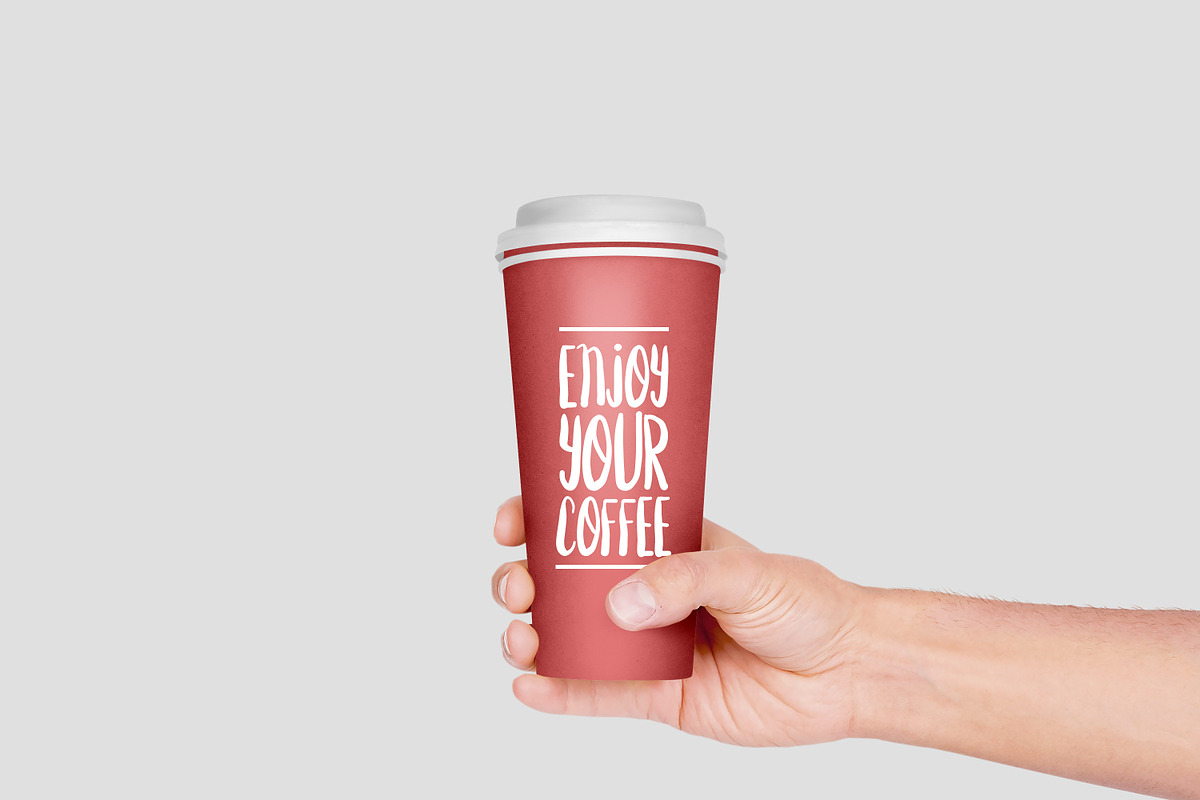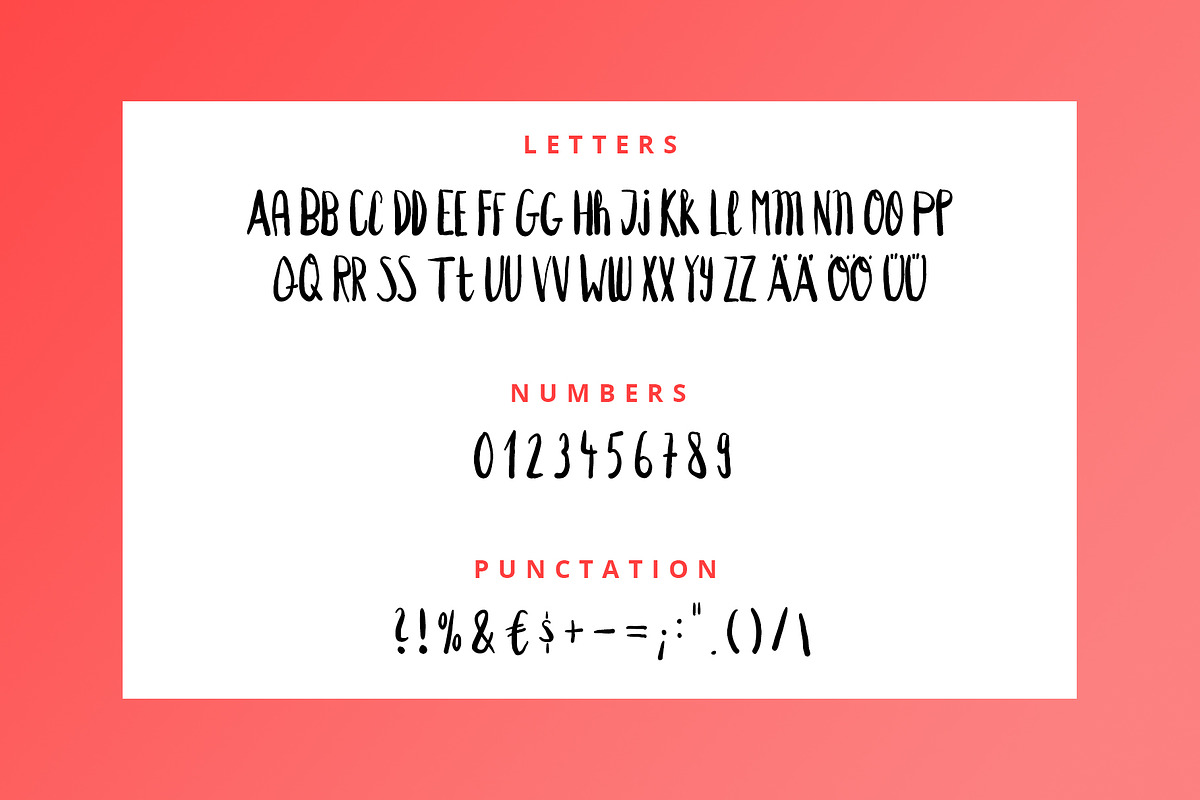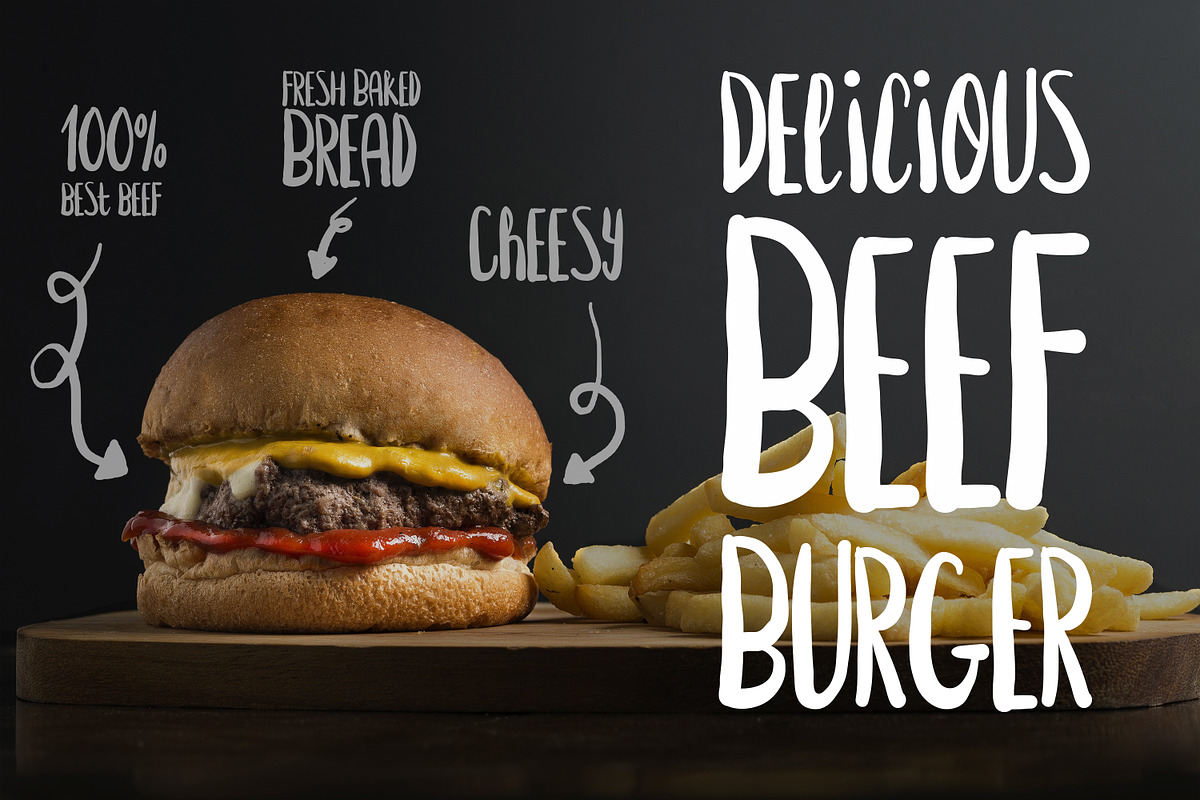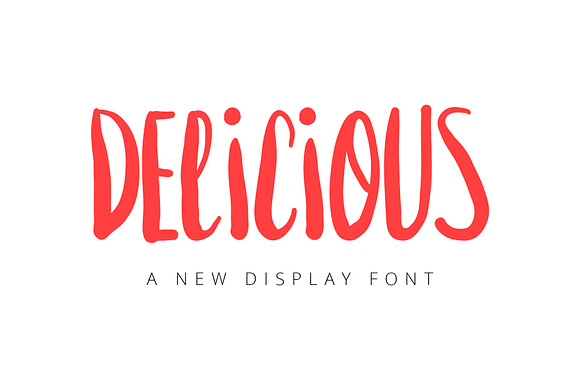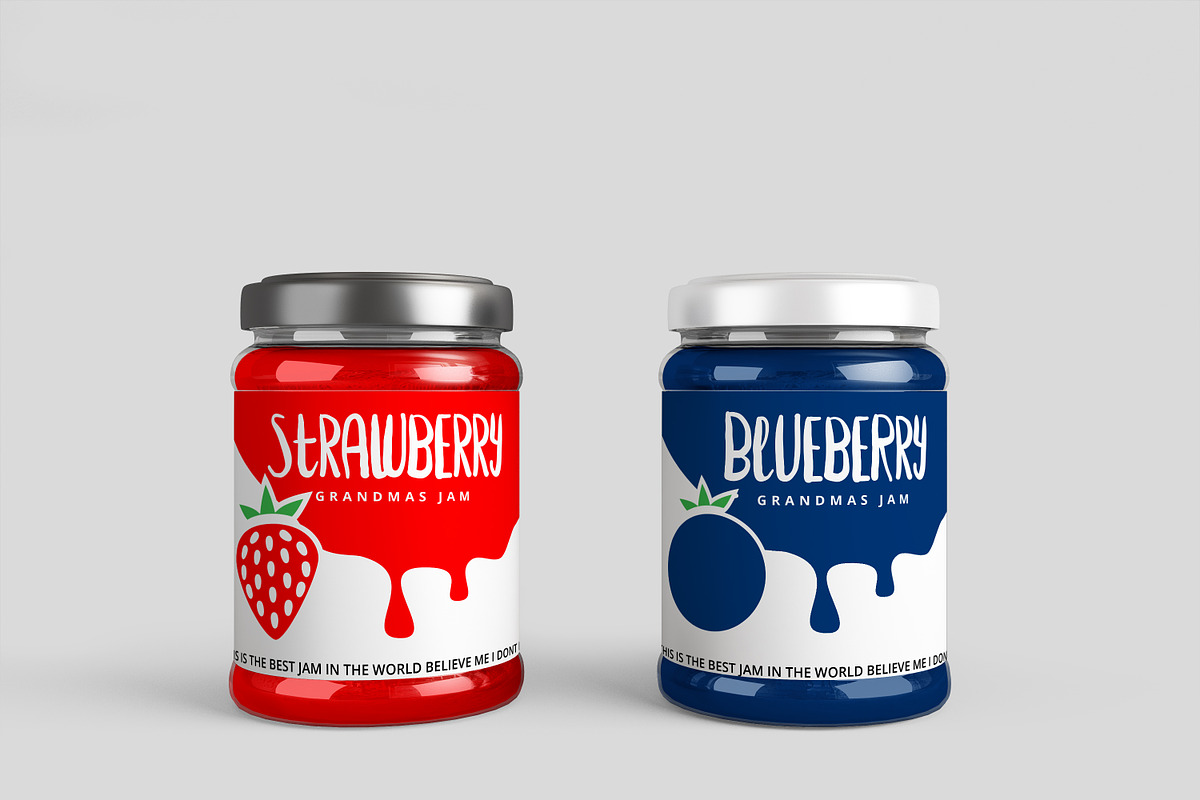
Delicious - Display Font
Hey :) While eating a damn tasty burger I had the idea to develop a tasty, yummy display font. I really got inspired but common fastfood chains and tried to develop a unique own style. I hope you like it :)!
the font fits perfectly to delicious modern food designs (such as menus, food products, logos etc.)
play around with uppercase and lowercase letters :)